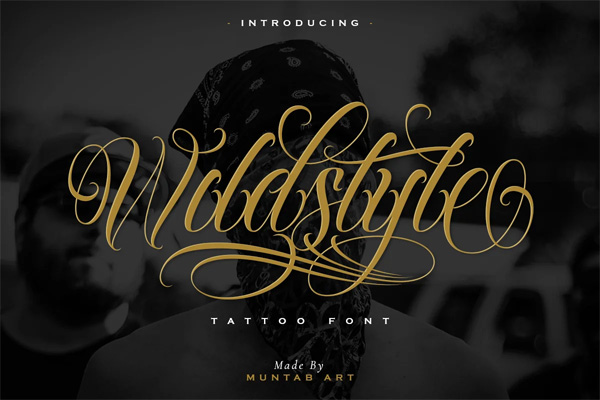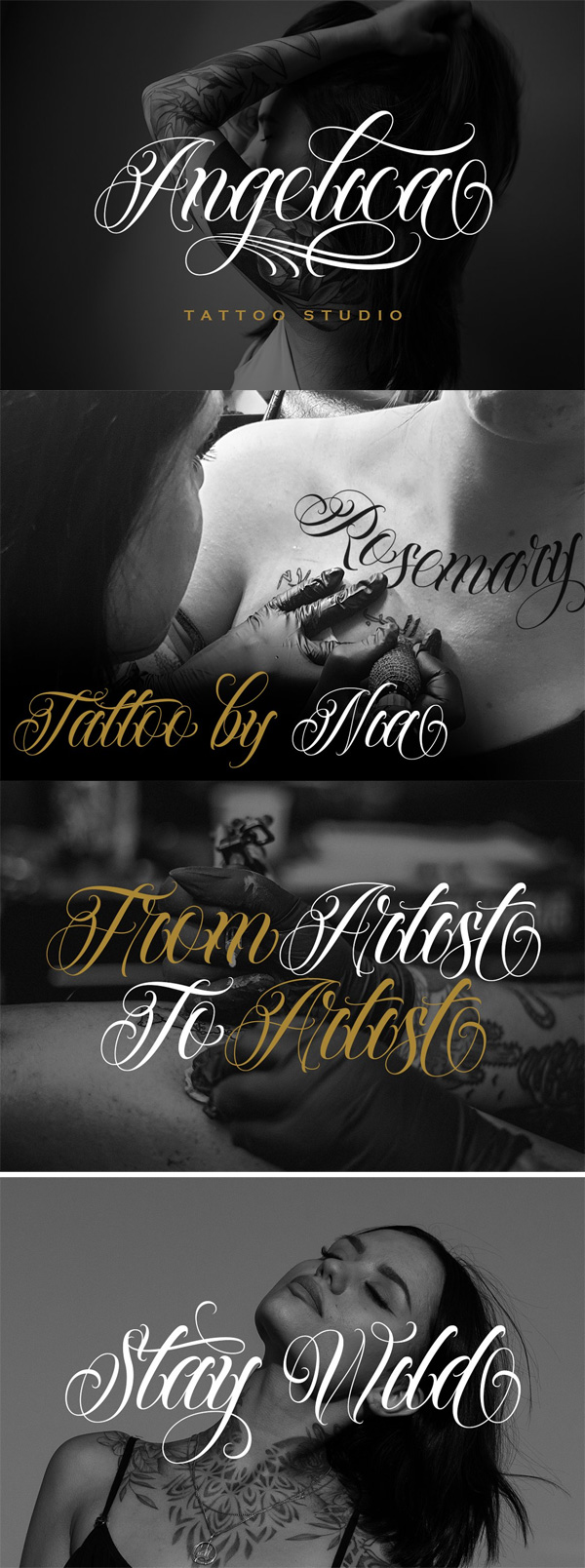
Wildstyle Chicano Tattoo Font
In this post, you can Free Download CreativeMarket – Wildstyle Chicano Tattoo Font 7260996 compressed files through the link below. Introducing our new product the name Wildstyle Chicano Tattoo Styles. Wildstyle font includes uppercase and lowercase letters, numerals, a large range of punctuation, and ligatures. All lowercase letters include ending swashes and alternative font. You Can Also Download 302 Fonts All in Collection.
Wildstyle Chicano Tattoo Font
Uppercase Lowercase Number Punctuation Multilingual Swash Opentype